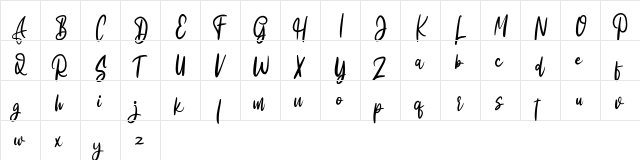
Ellies FREE Regular
Design Context for Ellies FREE Typeface
Ellies FREE is a composed and adaptable typeface that performs quietly and consistently across a wide range of design contexts.